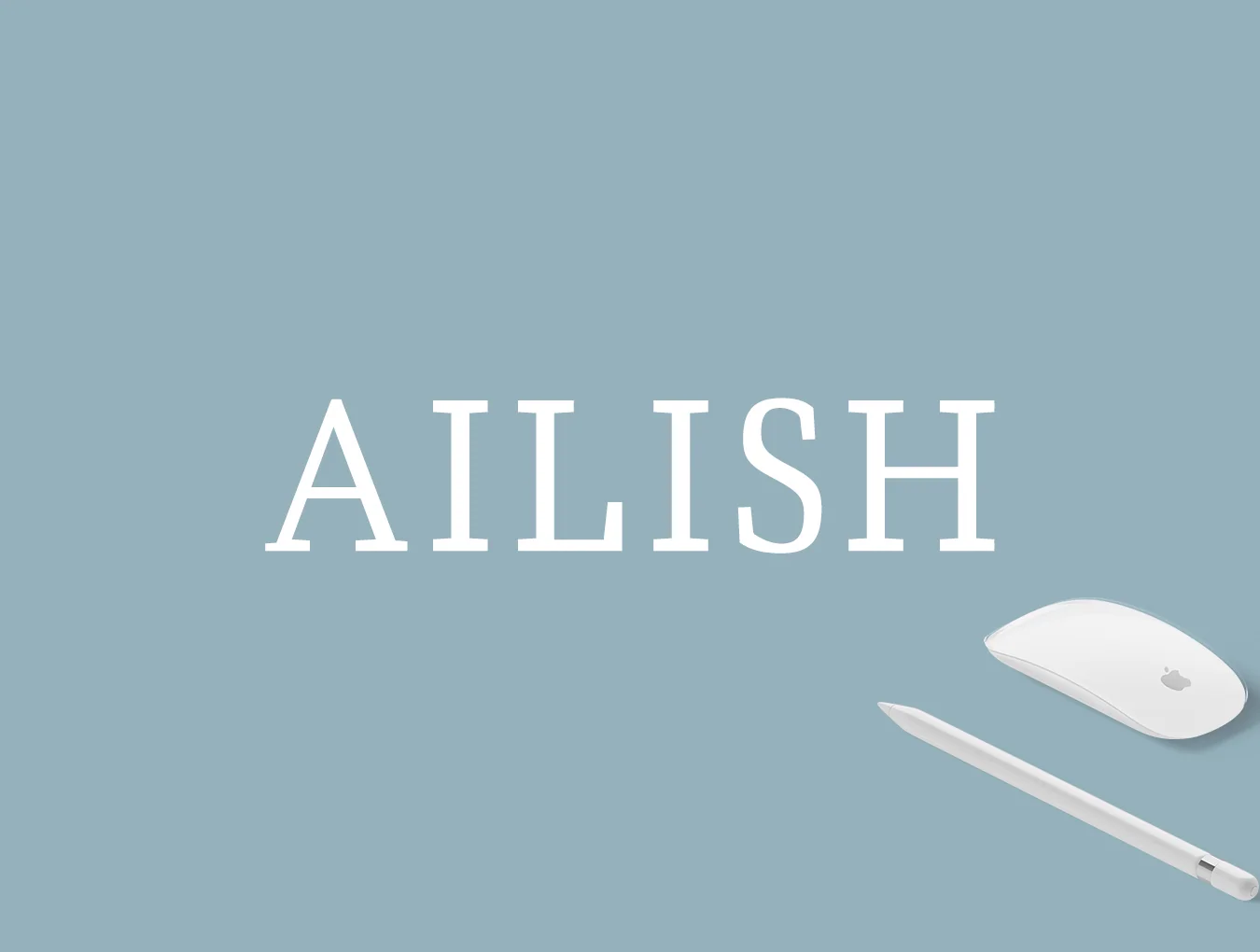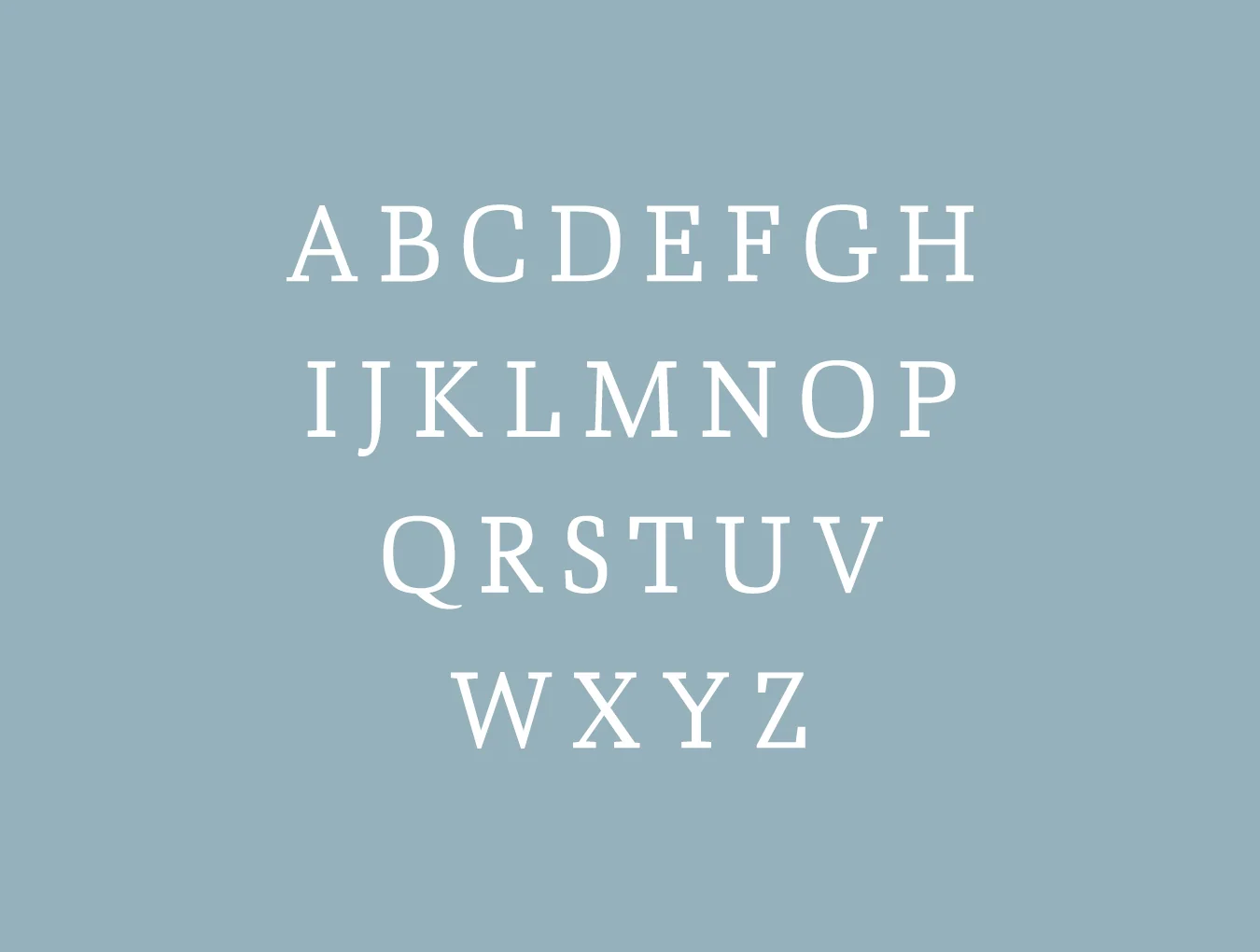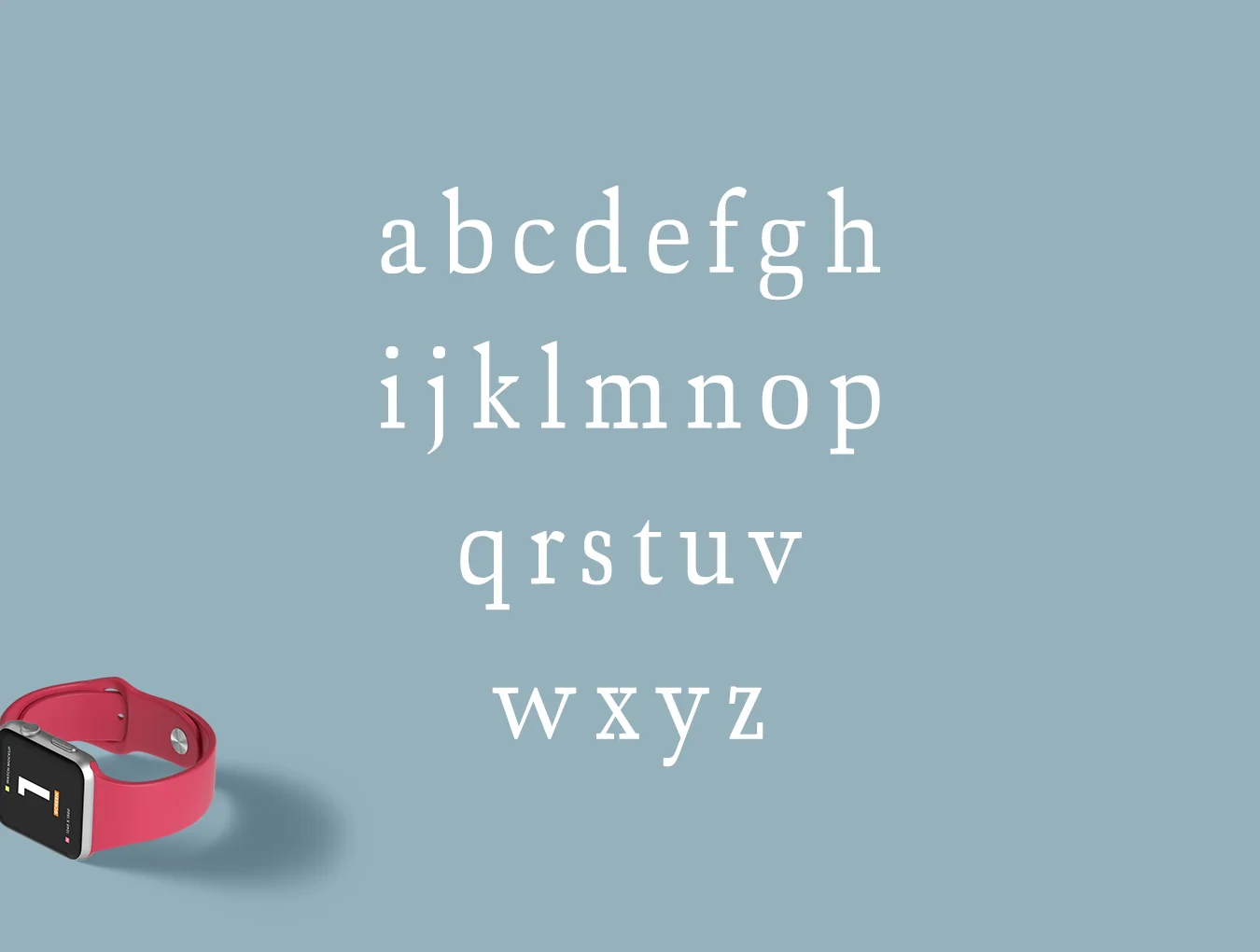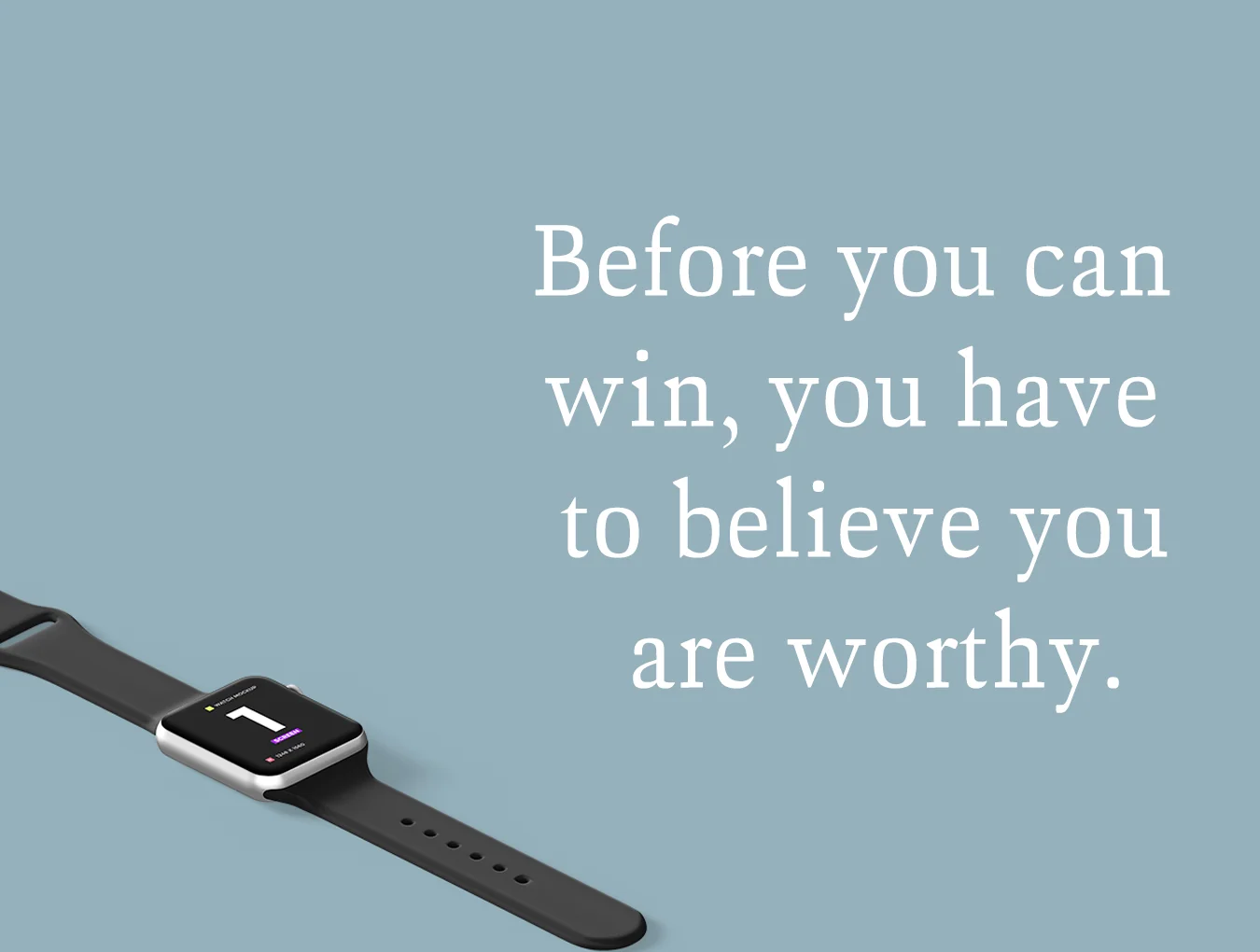
Ailish Slab Serif
Ailish Slab Serif 3 Typeface Family
Slab serif font family
Set of 296 glyphs
Regular and Thin styles
Ailish Slab Serif Typeface includes 3 weights and is ideal for creative display work. This distinctive slab serif brings stylish character to every word, fitting modern clean designs, logos, headlines, banners, templates, and more. Use all caps with wide spacing for a refined feel, or mix uppercase and lowercase for a timeless look.